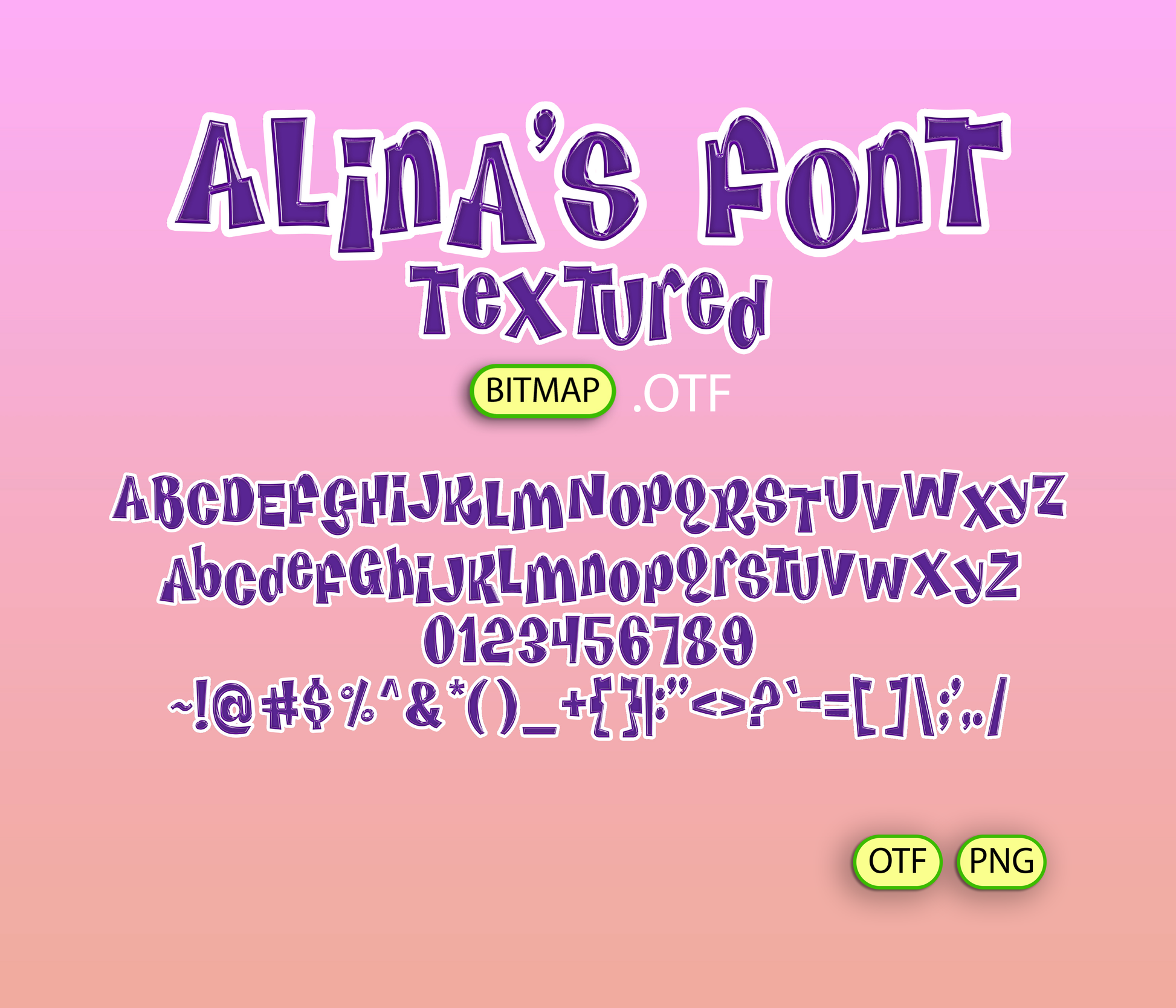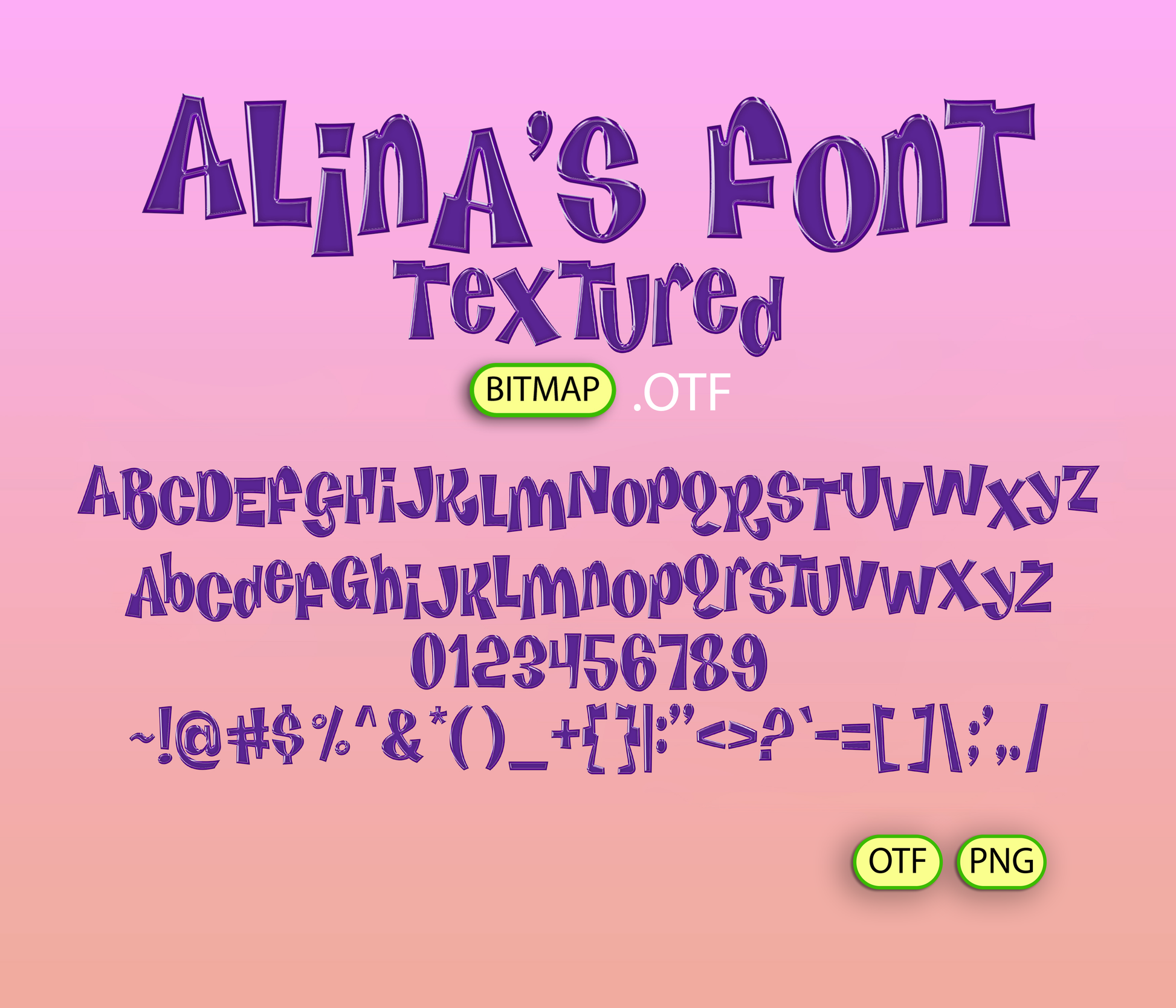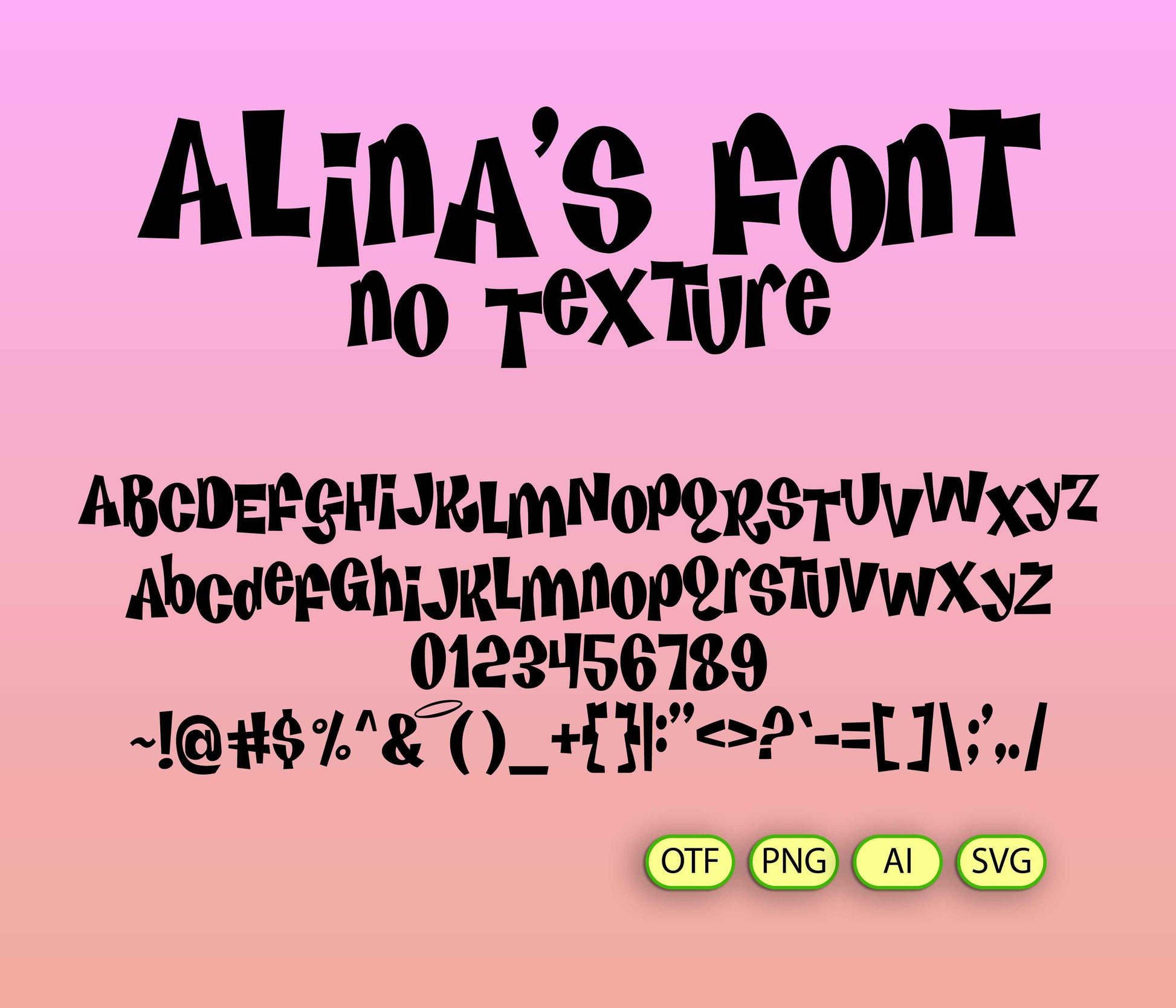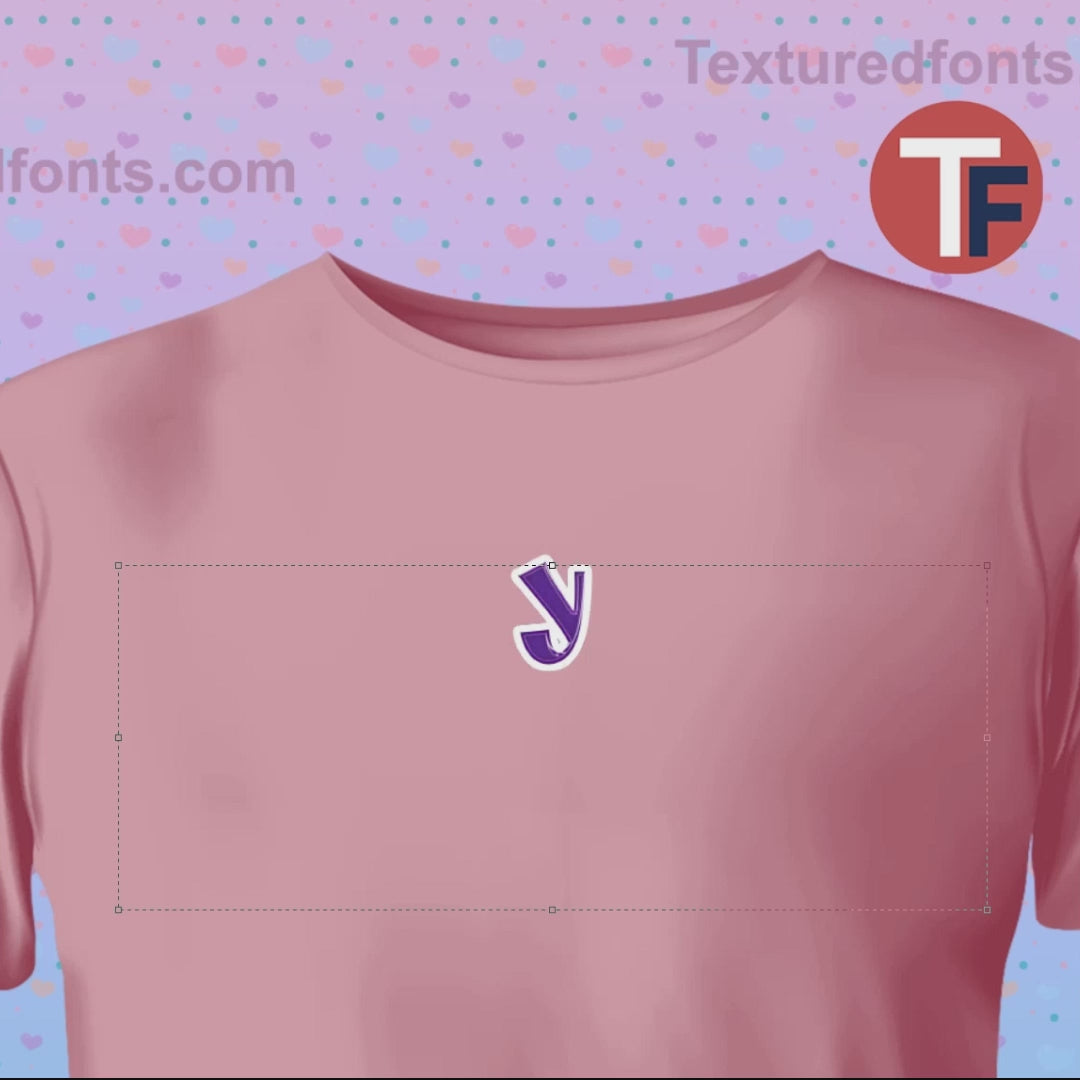
Y2K Fashionistas Font Textured
Dive into the glamorous world of Y2K fashion with our exclusive font, capturing the chic, sassy style of iconic characters. Designed for fans and creators, this font embodies the fashion-forward spirit and confidence of the early 2000s, ensuring your designs stand out with flair. Our Y2K Fashionistas-inspired font meticulously mirrors the iconic typography of Y2K branding, incorporating voluptuous curves and playful strokes. Beyond basic alphabets, it includes numbers and special characters, enabling comprehensive designs that truly speak the language of fashion.
What Can You Do With Y2K Fashionistas Font?
Offering textured, colored, and non-textured variants, the font package is versatile. A special no-texture version ensures compatibility with all software, including Canva, enhancing usability across platforms. Plus, a Cricut-optimized standard version caters to DIY fans and crafters, making creative projects effortless.
Our Y2K Fashionistas-inspired font is not just a typeface; it's an invitation to express your fashion-forward side with confidence. Perfect for a range of projects, it brings the daring spirit of Y2K fashion to your creations, ensuring they're as bold and vibrant as the era itself.